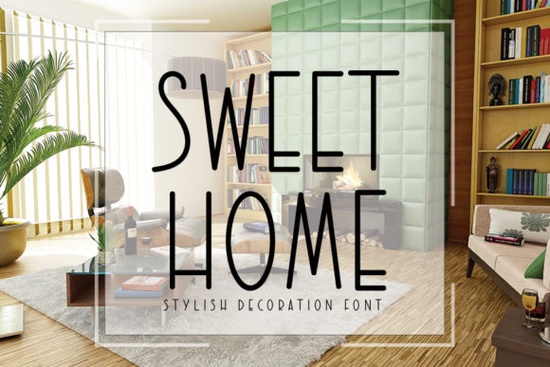
If you’re looking for a clean, modern sans serif that works just about anywhere from logos to packaging to social media graphics Sweet Home Font is worth a closer look. It’s the kind of typeface that doesn’t shout for attention but still manages to make your work feel polished and intentional. Whether you’re designing for print, digital, or physical products, this font adapts without losing its personality.
What makes it especially useful is how well it pairs with other fonts. You can easily combine it with something more decorative like Bird House, for example to create contrast while keeping things balanced. That flexibility is why so many designers keep a few minimal sans serifs in their toolkit. Sweet Home fills that role nicely: unobtrusive when needed, confident when featured.
Who should consider using Sweet Home Font?
This font isn’t tied to one specific use case. That’s part of its strength. Here’s who tends to get the most out of it:
- Print-on-demand sellers Use it for product mockups, labels, or quote-based designs. Its clean lines photograph well and scale cleanly on everything from mugs to tote bags.
- Small business owners Need a logo, signage, or social media banner? Sweet Home gives your brand a tidy, professional baseline without feeling corporate or cold.
- Crafters and DIYers Whether you’re cutting vinyl, printing stickers, or making greeting cards, this font plays nice with craft machines and design software alike.
- Graphic designers Looking for a neutral body font or a minimalist headline option? This one layers well and won’t clash with your layout’s visual hierarchy.
How does it compare to other minimal sans serifs?
There are plenty of “clean” fonts out there. What sets Sweet Home apart is its subtle warmth. Some minimalist fonts feel sterile or overly geometric this one has just enough character to avoid that. The letterforms are open and legible, even at small sizes, which matters if you’re working on packaging or mobile screens.
If you’ve used fonts like Bird House before, you’ll notice Sweet Home sits on the simpler end of the spectrum. Bird House has more personality in its curves and terminals, while Sweet Home leans into clarity. They complement each other not compete.
What kinds of projects work best with this font?
Because it’s so adaptable, you can stretch it across many formats. A few real-world examples:
- Wedding stationery Pair it with a script font for invitations that feel elegant but not fussy.
- Etsy shop branding Use it for banners, product titles, or thank-you cards to maintain consistency.
- Social media templates Clean sans serifs like this read well on screens and don’t distract from your message.
- Product packaging Especially for handmade goods, beauty items, or food where simplicity reads as premium.
You don’t need fancy design skills to make it work. Even if you’re dragging and dropping text in Canva or Cricut Design Space, Sweet Home holds up. It doesn’t rely on complex ligatures or stylistic alternates just solid, dependable letterforms.
Any tips for getting the most out of it?
A few practical suggestions:
- Play with spacing. Increase letter-spacing slightly for headlines it enhances that airy, modern feel.
- Stick to two weights max. If the font family includes light, regular, and bold, pick two. Too many weights can muddy your design.
- Contrast is key. Pair it with a handwritten or serif font for visual interest. Avoid stacking it with another ultra-minimal sans that can feel flat.
- Test readability early. If you’re using it for small text (like ingredient lists or footnotes), preview it at actual size. Some fonts look great big but fall apart tiny.
One thing to note: because it’s so versatile, it’s easy to overuse. If every element in your design uses Sweet Home, things can start to feel samey. That’s why pairing it thoughtfully maybe with something a little more playful often gives better results.